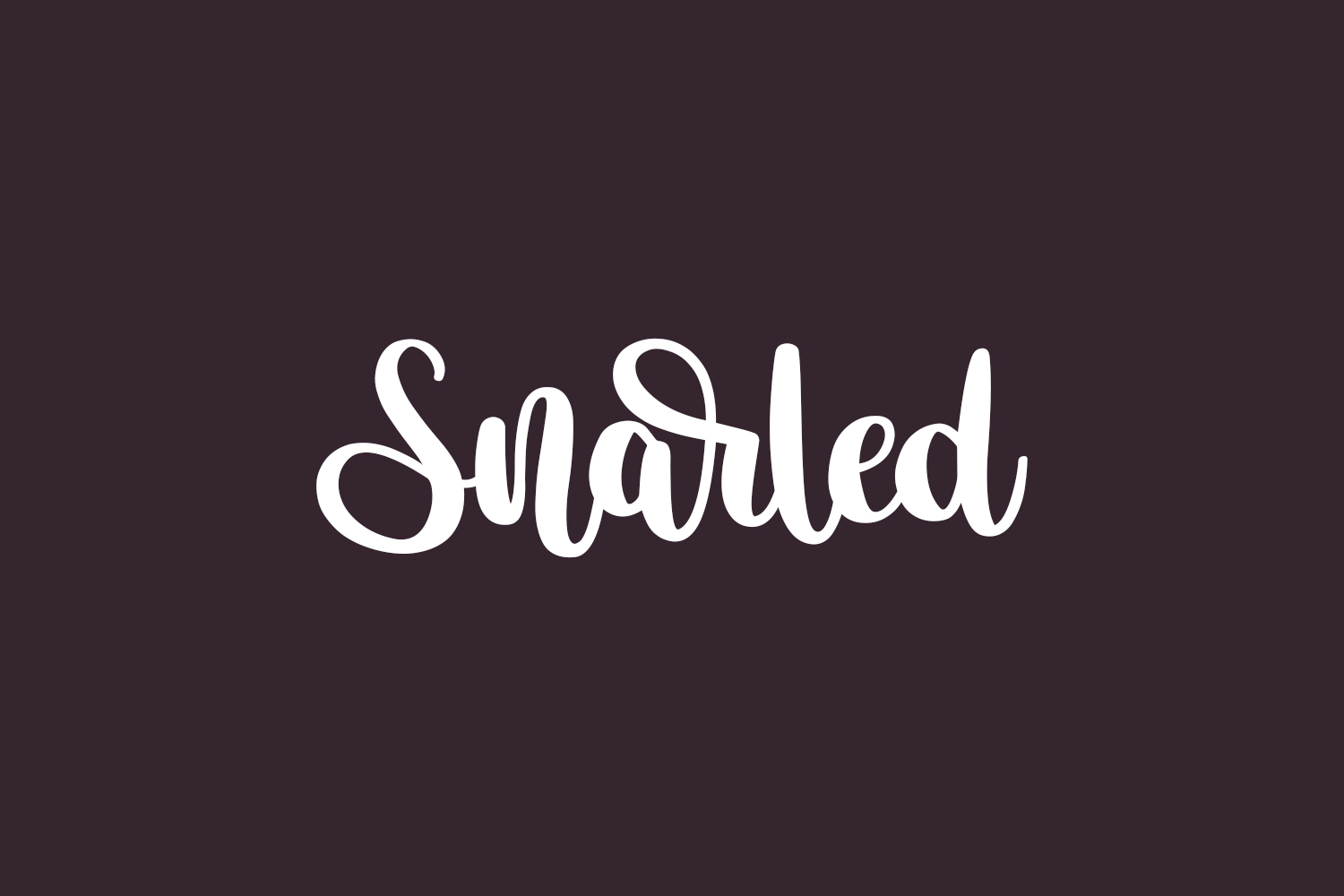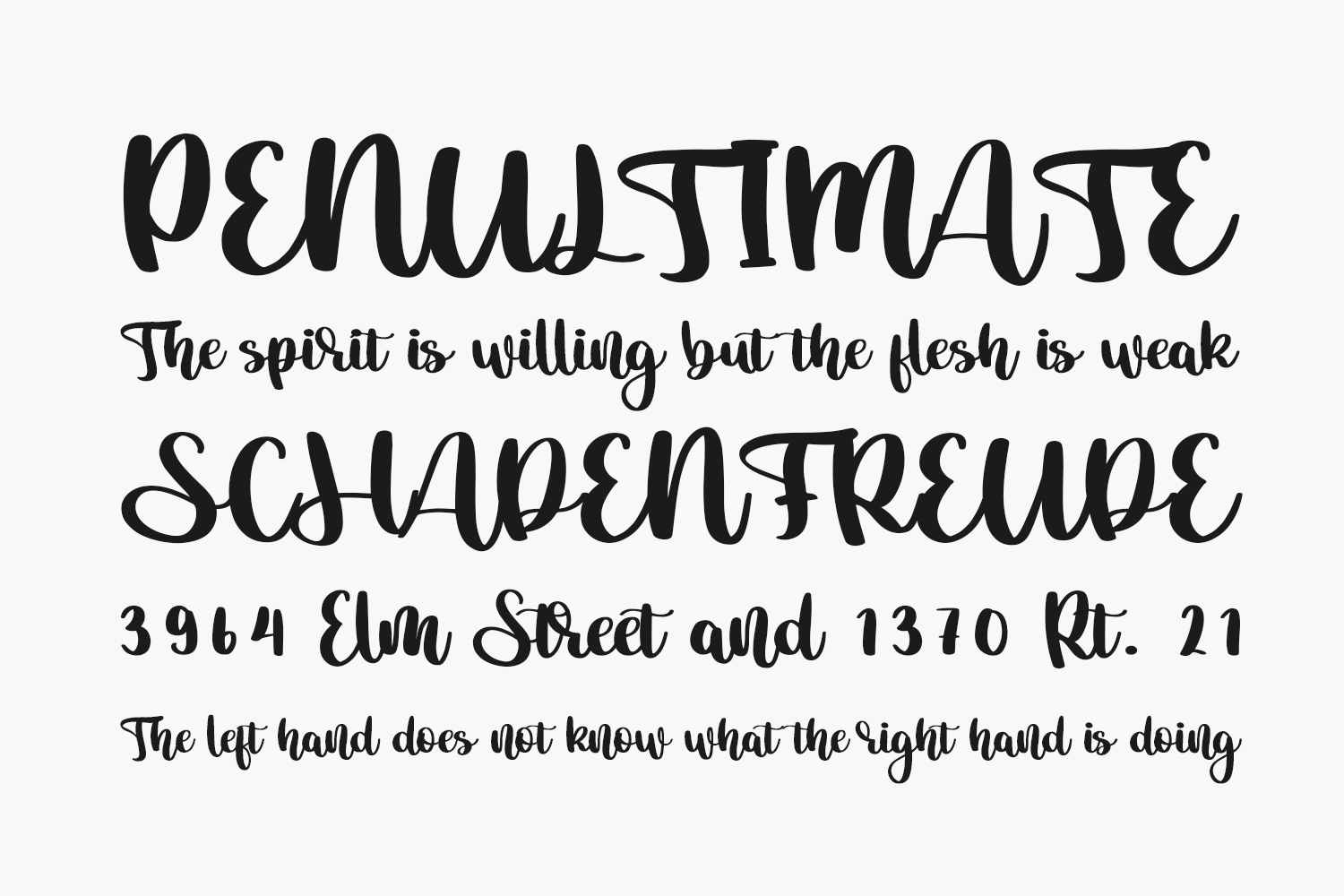
If you’re looking for a font that exudes elegance and sophistication, look no further than Snarled Free Font! This script calligraphy font features a unique and stylish design that is perfect for creating branding, logos, invitations, social media graphics, and more.
With its flowing curves and artistic flair, Snarled Free Font is the perfect choice for designers who want to make a statement with their typography. Its customizable features allow you to showcase your creativity and unique style, while its legibility ensures that your message is communicated clearly and effectively. Snarled Free Font is free for personal use only. Please purchase the full version for commercial use.